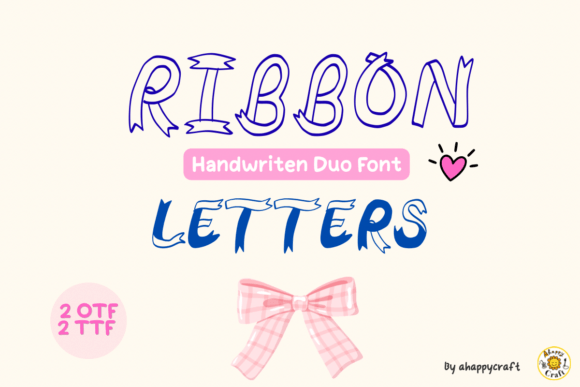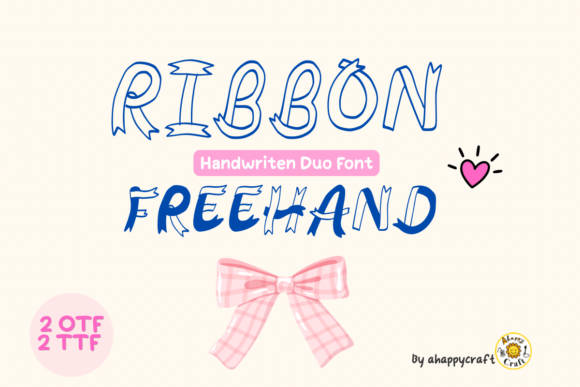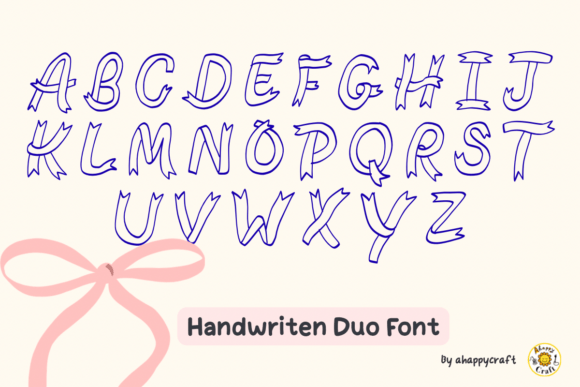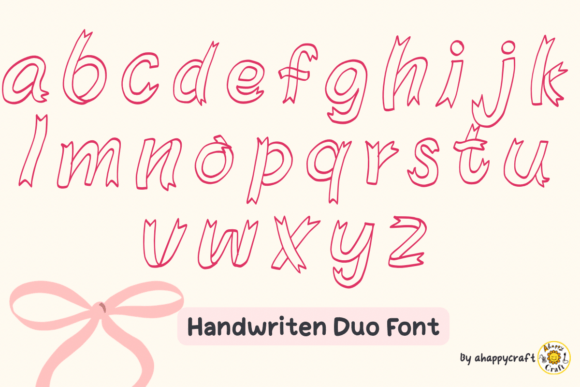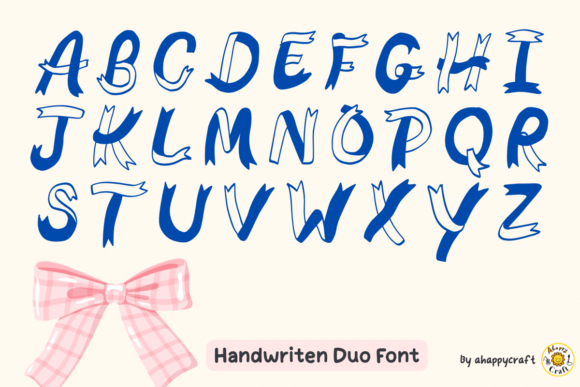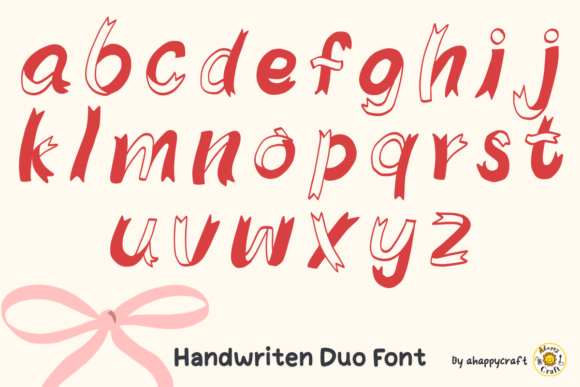
Introduction to Ribbon Freehand Font Font
Fonts play a crucial role in design, and the Ribbon Freehand Font font is a typeface that brings both character and versatility to any project. Whether you’re working on a branding project, a website, or a print design, the Ribbon Freehand Font font offers a unique style that can elevate your work.
Introduce an element of grace and sophistication to your artwork with the unique Ribbon Freehand Font.
Masterfully handcrafted, this ornamental display typeface exudes an essence of folded ribbons that ingeniously shapes each character, lending your text a laid-back allure coupled with a whimsical charm Ideal for enriching your invitations, enhancing scrapbooking themes, embellishing logo designs, or for adding an artistic flair to your Cricut crafts and festive holiday projects.
Key Features of Ribbon Freehand Font Font
Why Choose Ribbon Freehand Font Font?
The Ribbon Freehand Font font is more than just a typeface – it’s a design tool that helps you communicate your message with style and clarity. Its unique character set and versatile design make it suitable for a wide range of applications, from elegant invitations to bold headlines.
With its carefully crafted letterforms and balanced proportions, the Ribbon Freehand Font font ensures readability and visual appeal across all mediums.
What makes Ribbon Freehand Font font special?
The Ribbon Freehand Font font stands out with its unique design, exceptional readability, and versatility across various design applications.